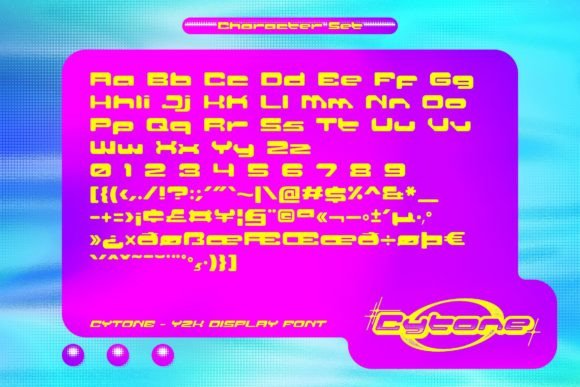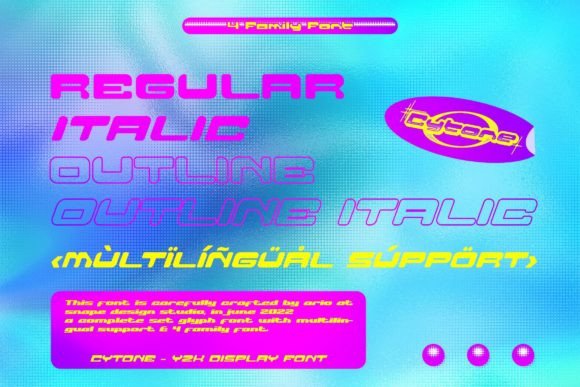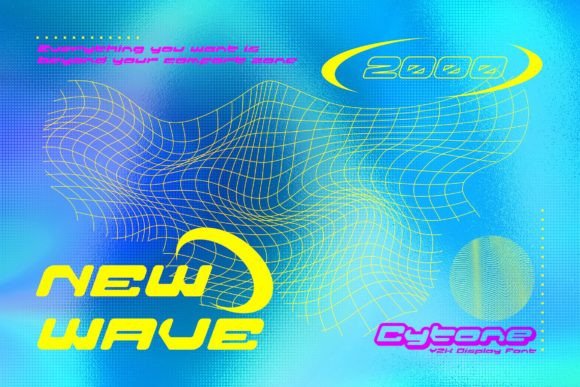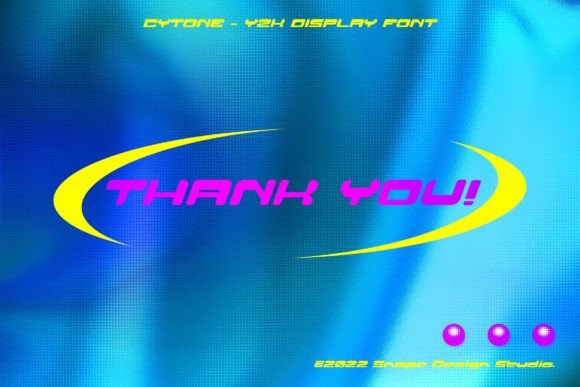
Cytone Font: Elevate Your Designs with a Futuristic Twist
In the realm of digital design, fonts play a pivotal role in conveying the essence and aesthetic of a project. For those seeking a font that embodies the futuristic, modern, and edgy vibe of the Y2K design era, Cytone Font is an exceptional choice. This article delves into the unique characteristics of Cytone, its inspirations, and the myriad of applications where it can be utilized to make a statement.
The Essence of Cytone Font
Cytone is a futuristic and modern display font that draws heavy inspiration from the Y2K design era, a period marked by a significant cultural and technological shift. This era, characterized by its vibrant music scene and pop culture, has influenced the design world profoundly. Cytone captures the essence of this era, making it a perfect fit for themes related to technology, digital media, and space galaxies.
Cytone’s design is sleek, with clean lines and a futuristic aesthetic that instantly grabs attention. Its modernity lies in its simplicity and the unique touch it brings to any design project. The font’s structure is robust, making it versatile for various applications, from digital platforms to print media.
Inspirations from Y2K Design Era
The Y2K design era was known for its boldness, vibrant colors, and a blend of digital and futuristic elements. Cytone Font encapsulates these characteristics, offering designers a tool to infuse their projects with a nostalgic yet forward-thinking feel. The font’s inspiration from music and pop culture of the time makes it particularly suitable for projects that aim to evoke a sense of modernity and innovation.
Applications of Cytone Font
The versatility of Cytone Font makes it suitable for a wide range of projects. Here are some of the areas where Cytone can make a significant impact:
• Technology and Digital Themes: For projects focused on tech, digital media, or software, Cytone provides a modern and futuristic feel that aligns perfectly with the theme.
• Space Galaxy Themes: The font’s futuristic design makes it an excellent choice for themes that explore space, galaxies, and the cosmos.
• Movies and Posters: Cytone can add a dramatic and modern touch to movie posters or any form of visual advertising.
• Games: For game developers, Cytone can be used to create titles, menus, and in-game text that stand out with a futuristic vibe.
• Book Covers and Headlines: Authors and publishers can use Cytone to create eye-catching book covers or headlines that reflect a modern and futuristic theme.
• Logos: Businesses looking for a modern and impactful logo will find Cytone to be a valuable resource.
Why Choose Cytone Font?
Cytone Font stands out due to its unique blend of modernity and nostalgia. Its ability to evoke the futuristic feel of the Y2K era, combined with its versatility, makes it a valuable asset for designers. Here are a few reasons why Cytone should be your go-to font for futuristic and modern designs:
• Unique Aesthetic: Cytone offers a distinct look that can set your project apart from others.
• Versatility: Its robust design makes it suitable for a wide range of applications.
• Modern Appeal: Cytone’s futuristic design ensures your project looks modern and appealing.
Cytone Font is a powerful tool for designers looking to infuse their projects with a modern, futuristic twist. Its inspiration from the Y2K design era, combined with its versatility and unique aesthetic, makes it an excellent choice for a variety of applications. Whether you’re working on a technology project, designing a movie poster, or creating a logo, Cytone Font can elevate your design and make it stand out. Embrace the futuristic vibe of Cytone and watch your creative ideas transform into visually stunning projects.